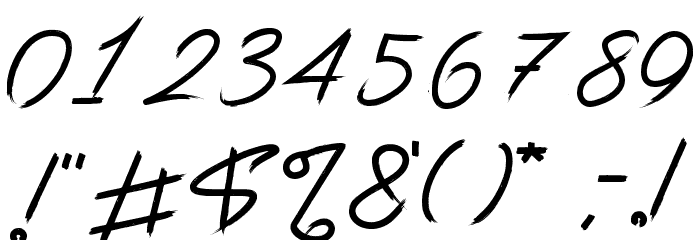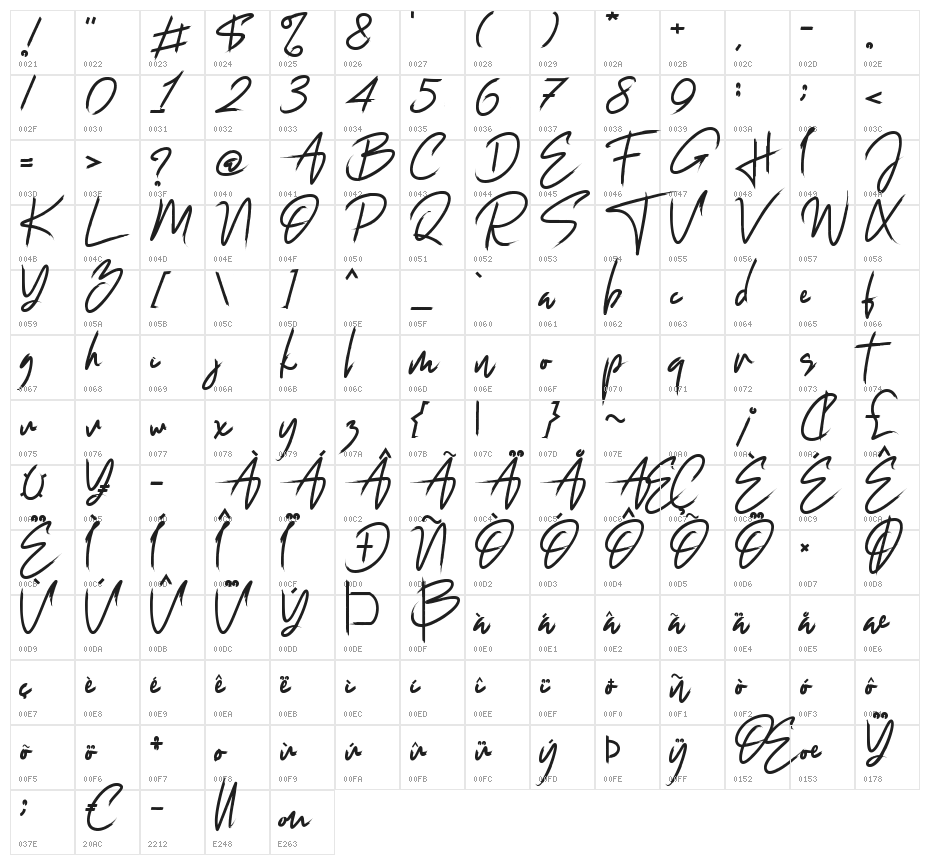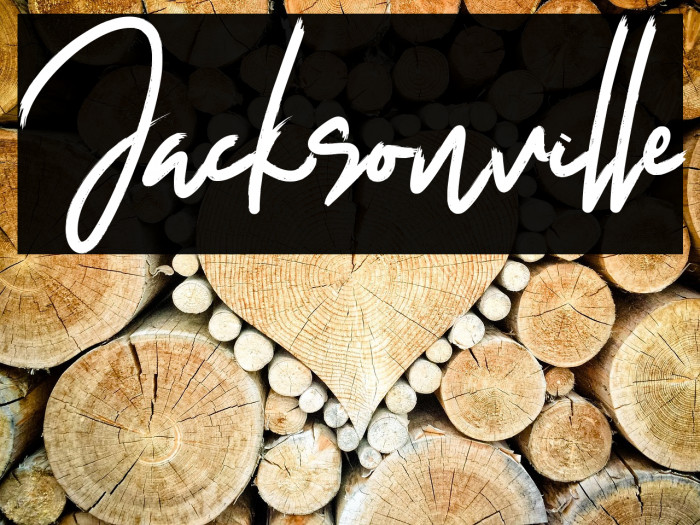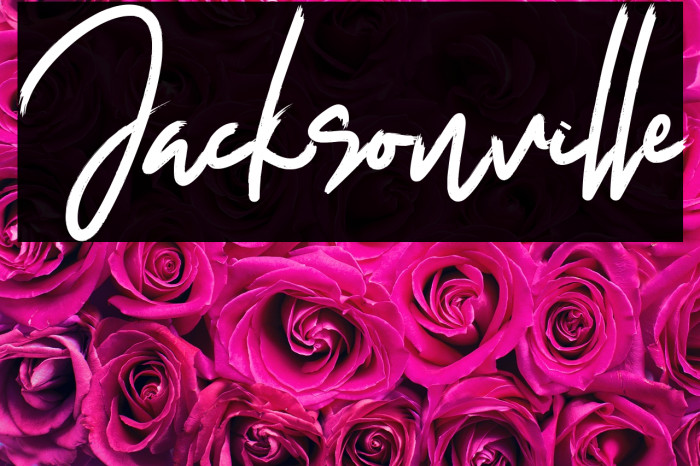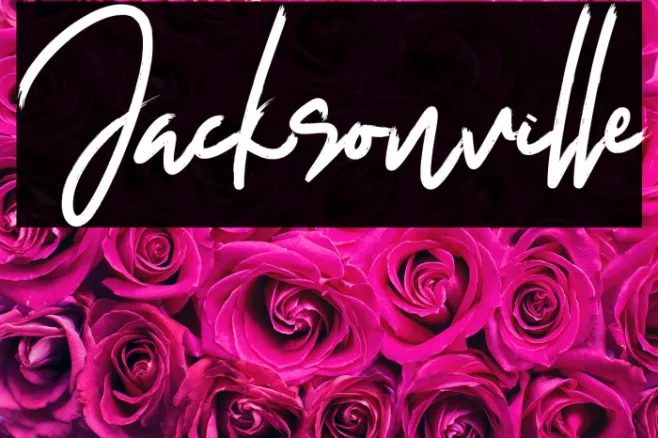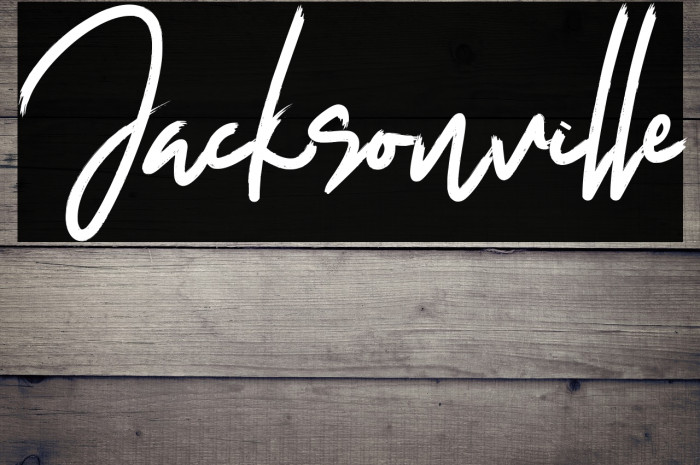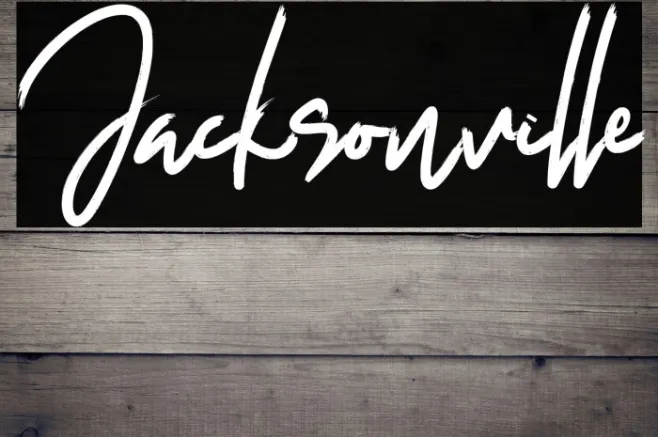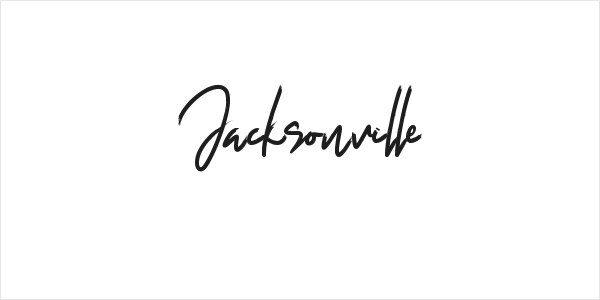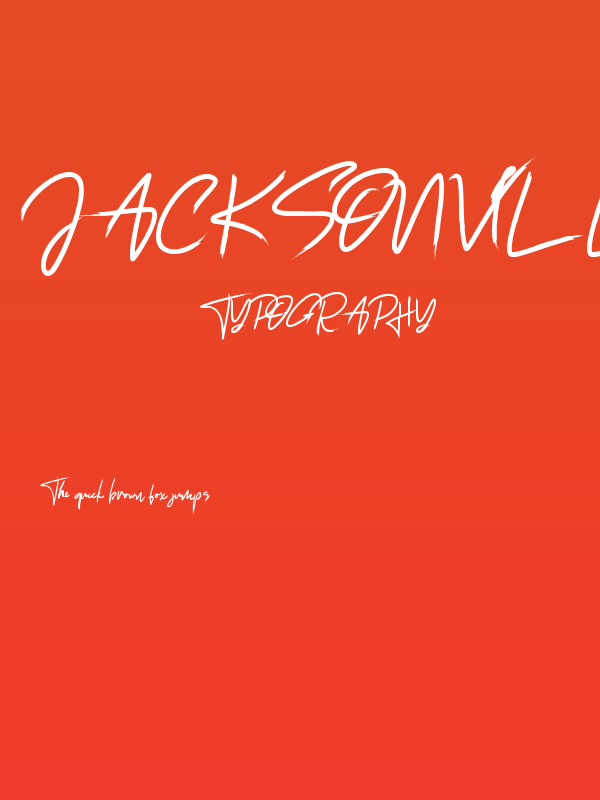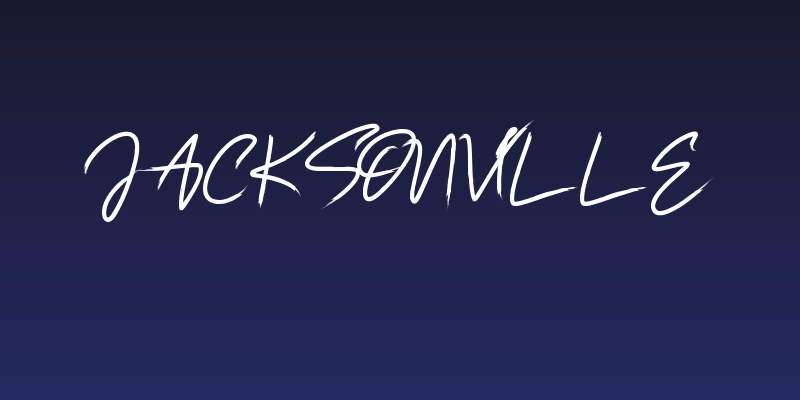
Jacksonville Font
Jacksonville Description
This font exudes a dynamic and energetic style, characterized by its bold and expressive strokes. The letters have a handwritten, brush-like appearance, with varying thickness that adds a sense of movement and fluidity. The uppercase letters are tall and slightly slanted, while the lowercase letters maintain a consistent flow, enhancing the overall aesthetic. The numbers and special characters follow the same lively style, making the font suitable for creative and artistic projects. Its unique flair makes it stand out, capturing attention with its bold presence.
| Proposed Projects | Ideal for branding, posters, album covers, and creative design projects that require a bold, artistic touch. |